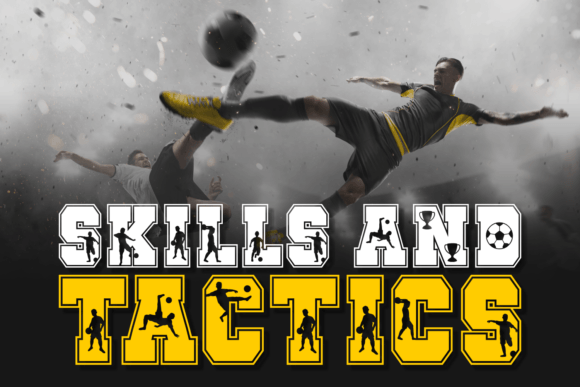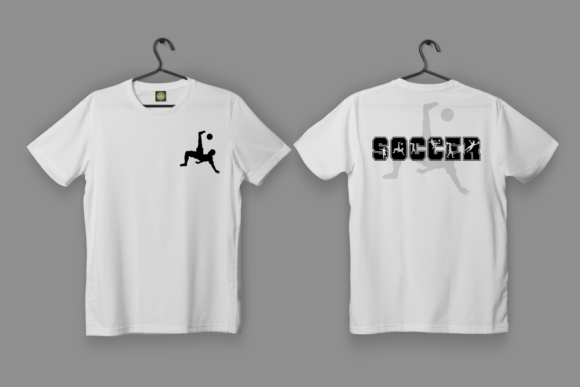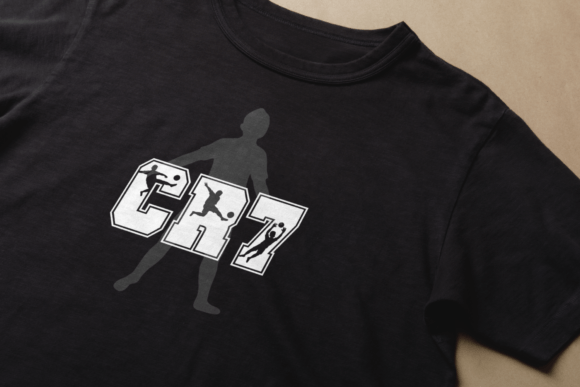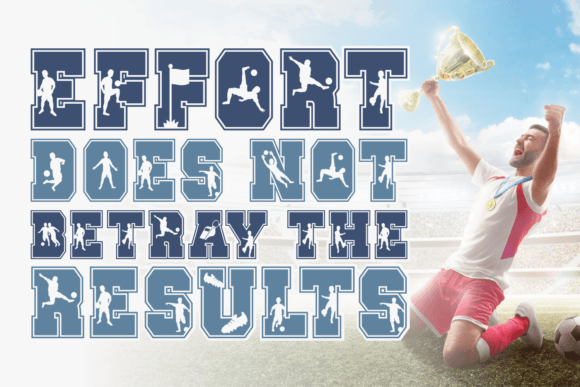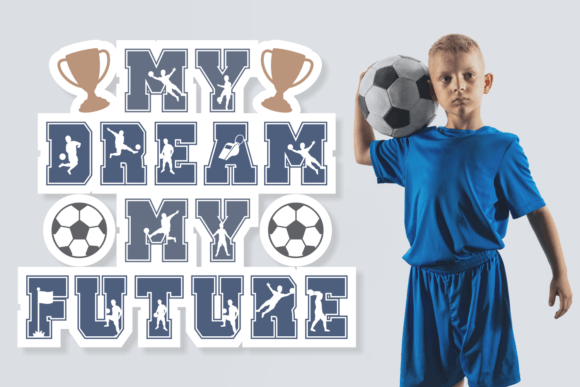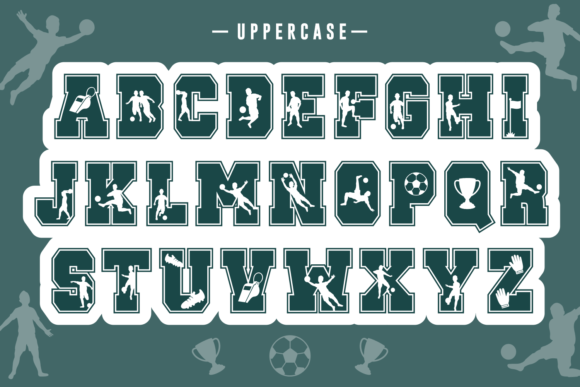
Introducing the Great Soccer Font: Elevate Your Soccer-Themed Designs
Are you a designer or crafter looking for a font that can add a bold and dynamic touch to your soccer-themed projects? Look no further than the Great Soccer font! This modern font is specifically designed for logos and stand-out typography, making it the perfect choice for any project that requires a strong and sporty vibe.
What Makes Great Soccer Font Stand Out
Great Soccer is a carefully crafted font that embodies the spirit of soccer. Its sleek and modern design makes it ideal for a wide range of applications, from logos and branding to jerseys and sports equipment. The font’s bold and edgy style is sure to grab attention and make your designs stand out from the crowd.
One of the key features of the Great Soccer font is its versatility. It can be used for both print and digital applications, making it a great choice for designers who need to create a cohesive brand identity across multiple platforms. Whether you’re designing a logo for a professional soccer team or creating a flyer for a local soccer tournament, this font is sure to deliver.
Key Features of Great Soccer Font
- Modern and sleek design: The Great Soccer font features a clean and contemporary design that is perfect for sports-themed projects.
- Bold and edgy style: The font’s bold and edgy style makes it perfect for logos, jerseys, and other applications where you want to make a statement.
- Versatile and adaptable: The Great Soccer font can be used for both print and digital applications, making it a great choice for designers who need to create a cohesive brand identity.
- Easy to read: Despite its bold and edgy style, the Great Soccer font is easy to read, even at small sizes.
Why Choose Great Soccer Font?
So why choose the Great Soccer font for your soccer-themed projects? Here are just a few reasons:
- Unique and memorable: The Great Soccer font is designed to stand out from the crowd. Its unique and memorable style will help your designs stay top of mind.
- Professional and polished: The font’s sleek and modern design gives it a professional and polished feel that’s perfect for logos, branding, and other high-end applications.
How to Use Great Soccer Font
- Pair it with bold colors: The Great Soccer font looks great when paired with bold and bright colors. Try using it with a bold red or blue to create a striking visual effect.
- Use it for headings: The Great Soccer font is perfect for headings and titles. Use it to add a bold and dynamic touch to your designs.
- Experiment with different sizes: The Great Soccer font looks great at a variety of sizes. Experiment with different sizes to find the one that works best for your project.